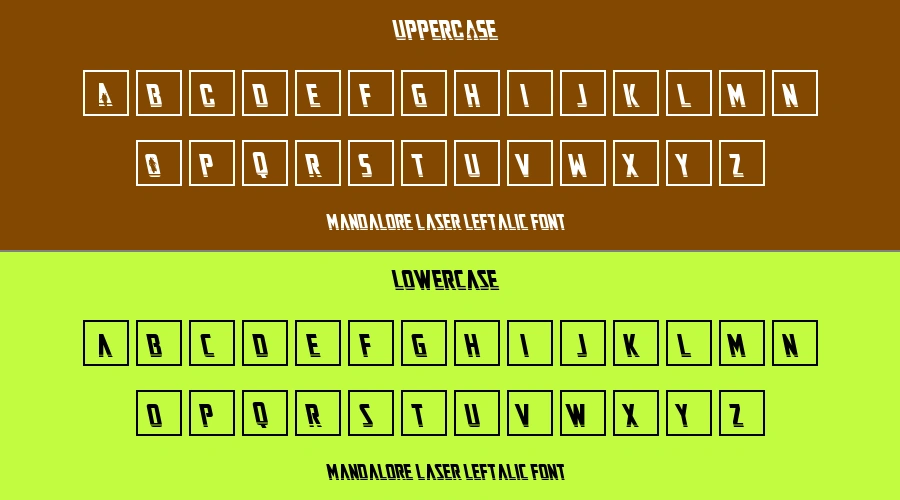
About Mandalore Laser Leftalic Font
Mandalore Laser Leftalic Font embodies typographic excellence through its masterful combination of graceful transitions and technical accuracy. Created for engineering specs, this typeface delivers exceptional flexibility and market confidence across all applications. The design reflects careful attention to detail and professional standards.
Advanced capabilities include distinctive systematic design and versatile decorative caps, giving designers creative control. When used in digital banners, Mandalore Laser Leftalic Font exhibits remarkable large format rendering. The harmonious balance between x-height proportion and cultural relevance sets this typeface apart.